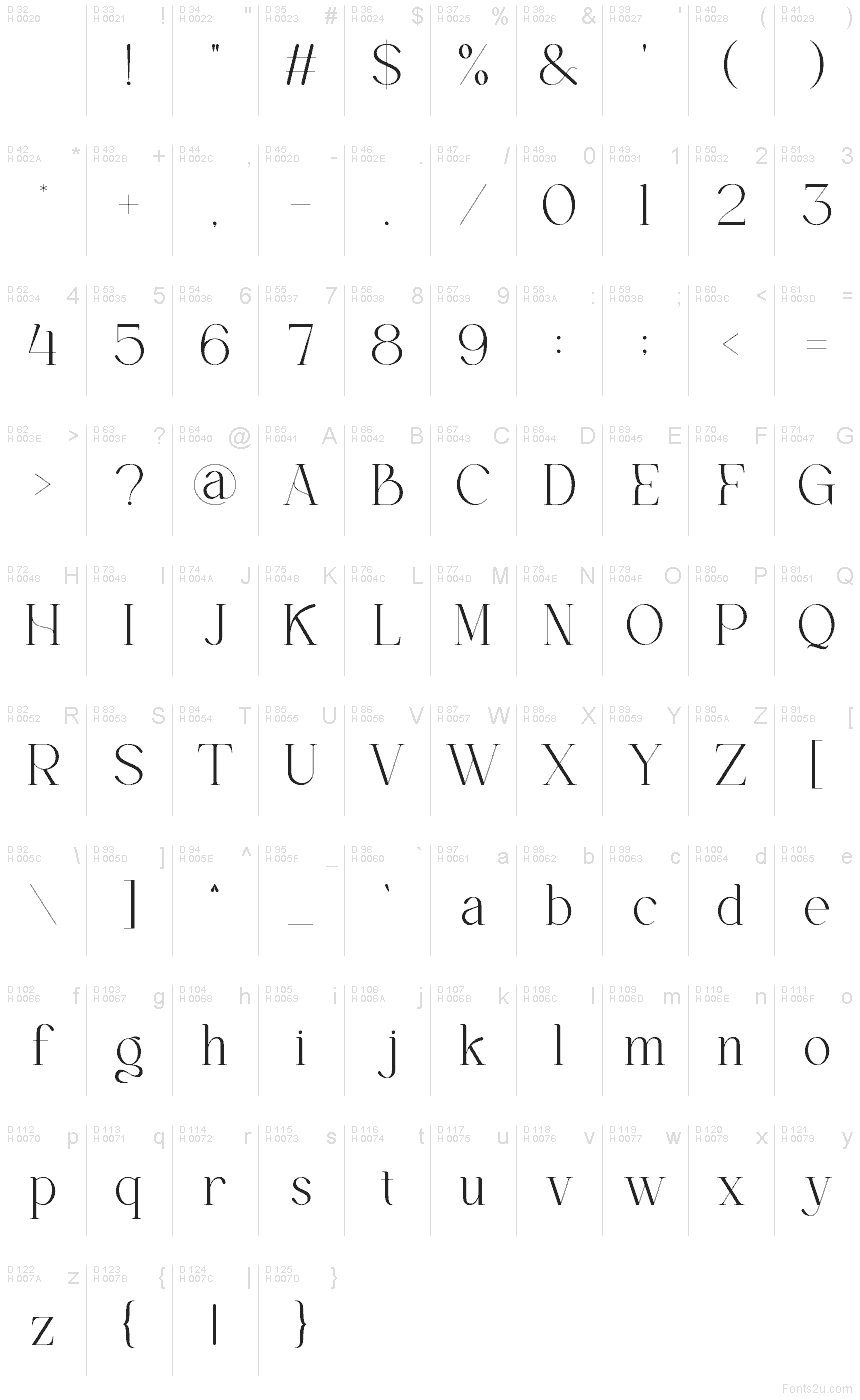
Qioner Regular
Qioner font by Ermedia Studio is a free high-contrast serif display font. Its defining move is the knife-edge tension between velvety thick strokes and whisper-thin hairlines, with sculpted curves that feel tailored and luxurious. Letters look cut from glossy paper—crisp, airy, and poised—so headlines breathe while still landing with authority.
Using Qioner gives fashion editorials, boutique logos, fragrance packaging, magazine covers, event invitations, wine labels, and website hero text a refined, modern classic tone. This free font shines when set large with a touch of extra tracking. Pair it with a neutral sans for body copy to keep the spotlight on Qioner’s elegant contours.